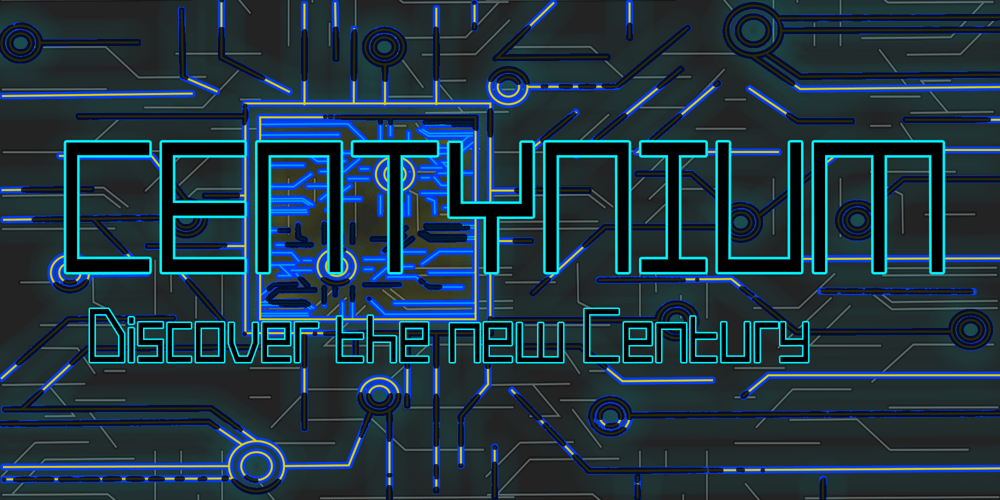
Centynium Font Family was designed by Ali Nurdiansyah and published by Alcytrectype. Centynium contains 1 styles and family package options. With so many different type of design, Centynium presents a design that simpler and easier to read.With a future theme for those of you who like futuristic things.Comes with OpenType features making it easier for you to use.